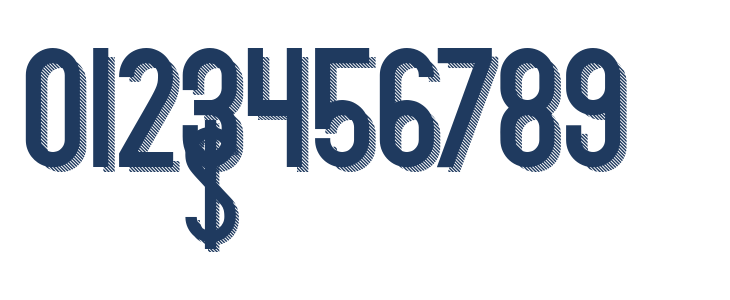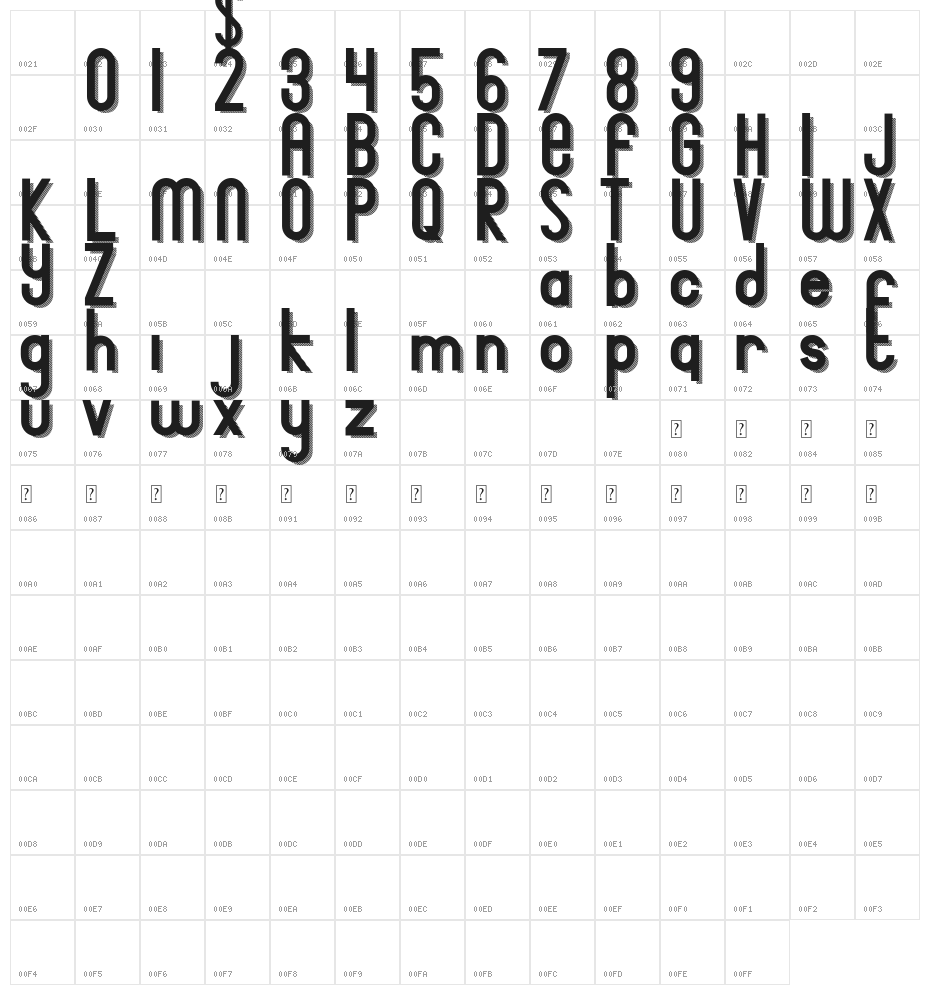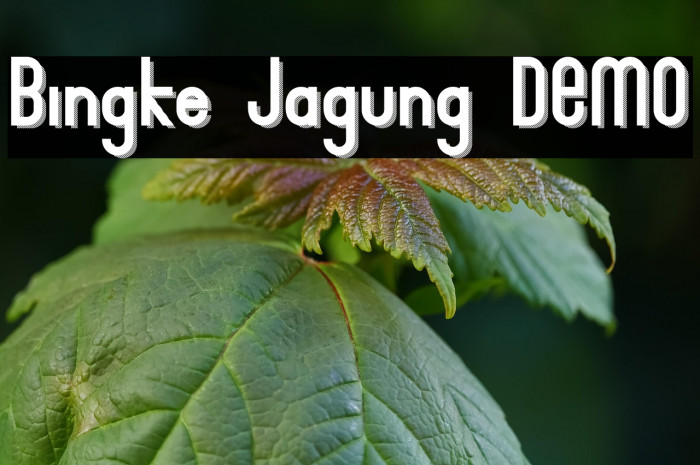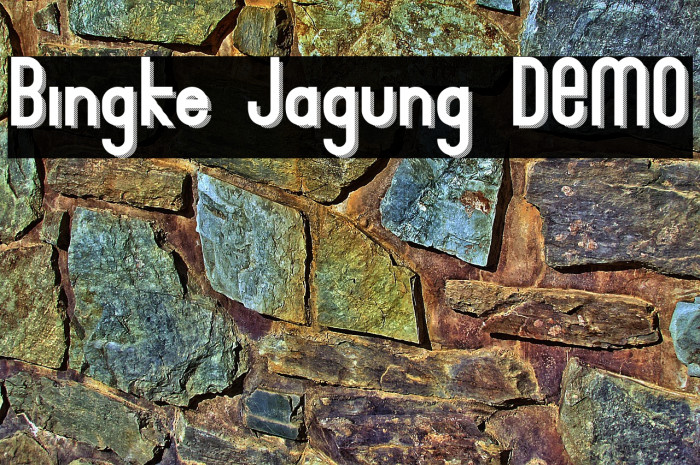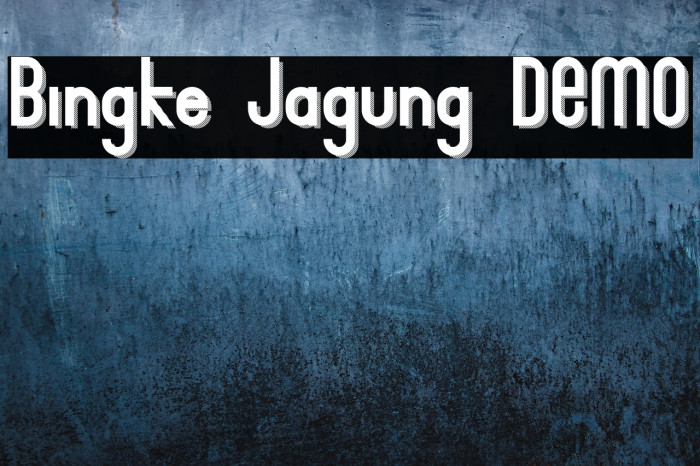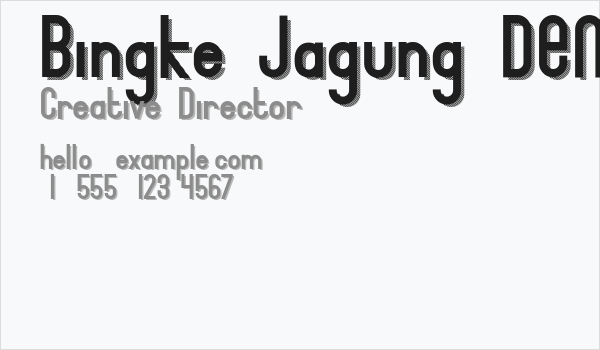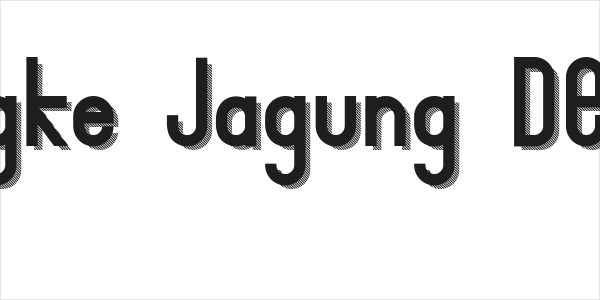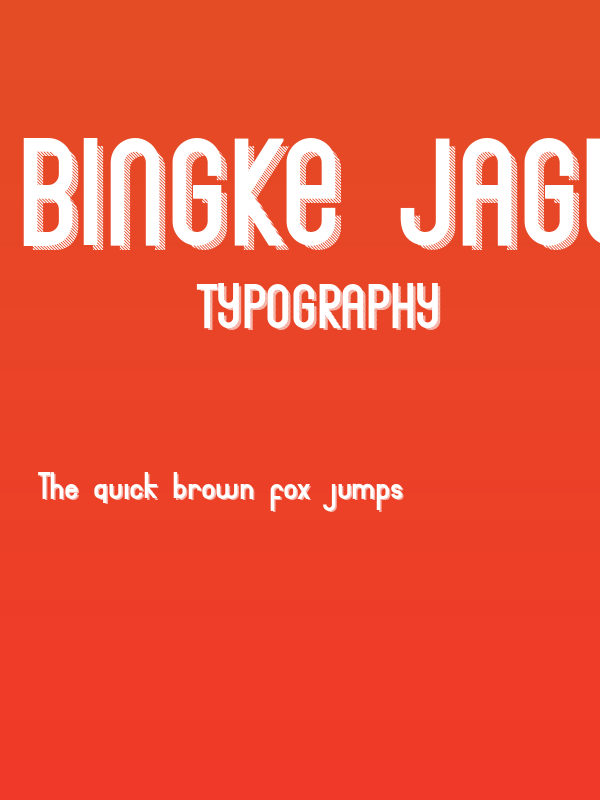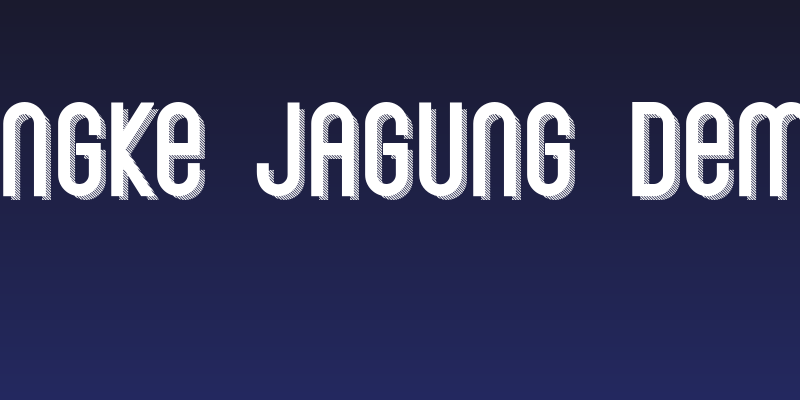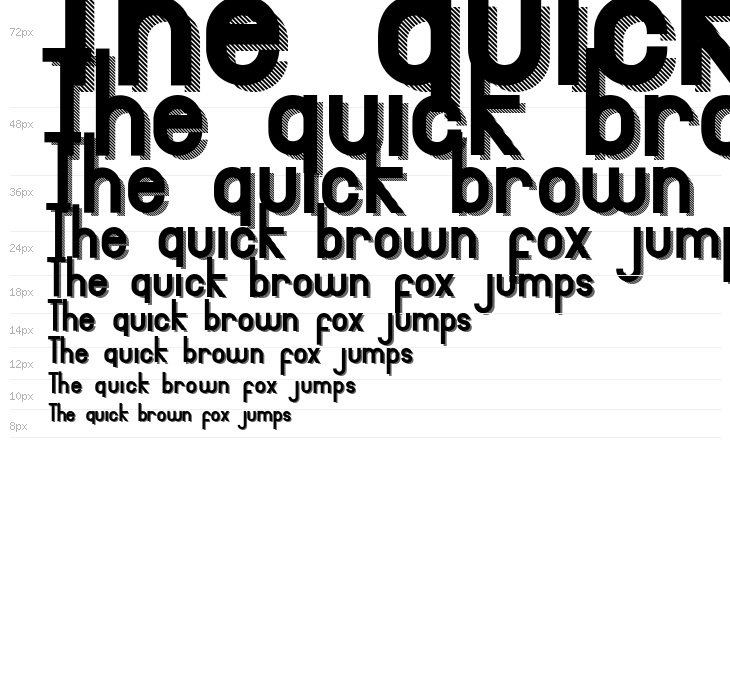
Bingke Jagung DEMO Font
Bingke Jagung DEMO Description
This font features a bold and modern design with a unique striped pattern that adds depth and texture to each character. The uppercase and lowercase letters maintain a consistent width, creating a uniform appearance. The numbers and special characters follow the same stylistic approach, ensuring cohesion across all elements. The font's geometric shapes and clean lines make it suitable for contemporary designs, while the striped detailing provides a distinctive flair. The overall look is both eye-catching and versatile, making it ideal for projects that require a strong visual impact.
Proposed ProjectsIdeal for branding, advertising, posters, and digital media where a strong visual presence is needed.